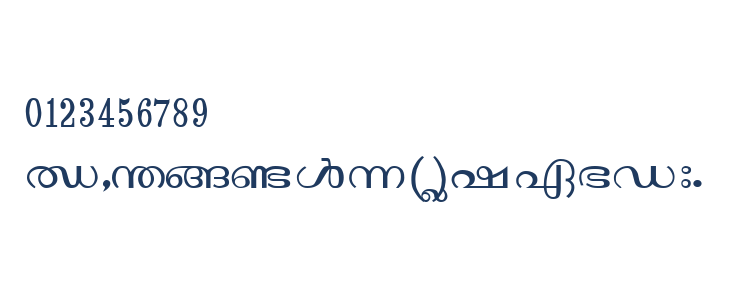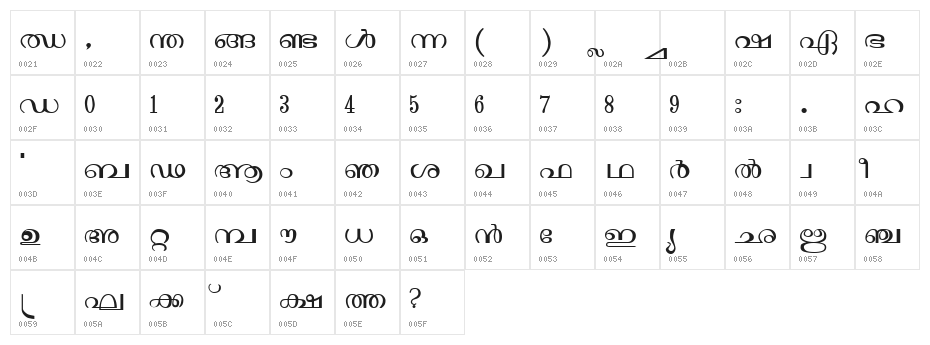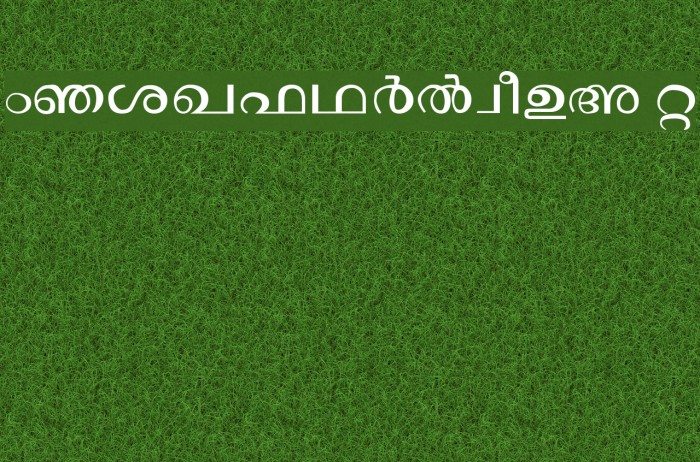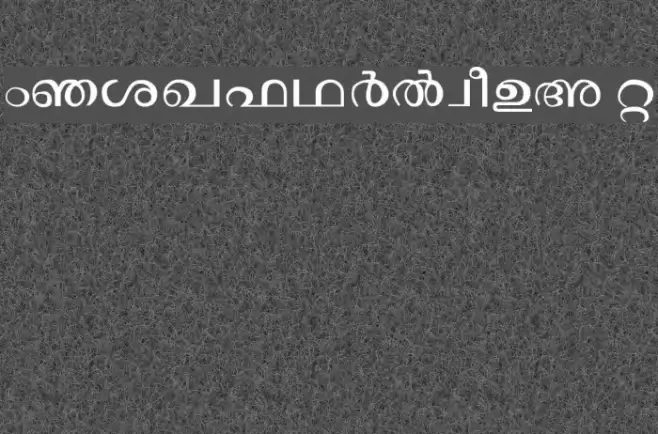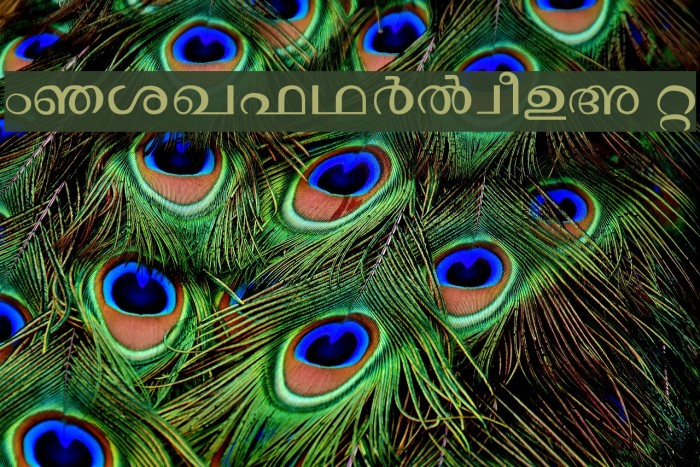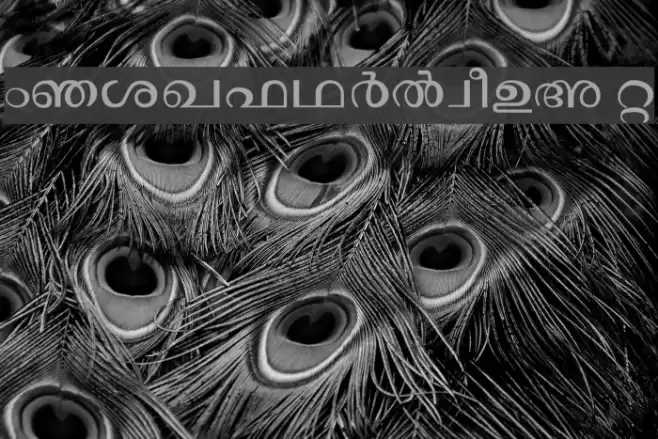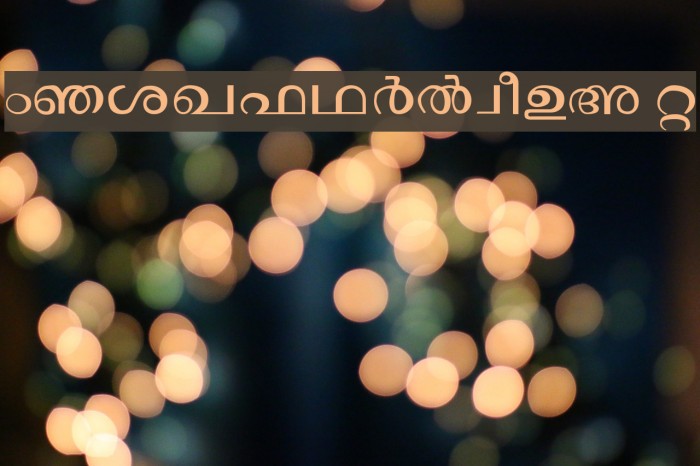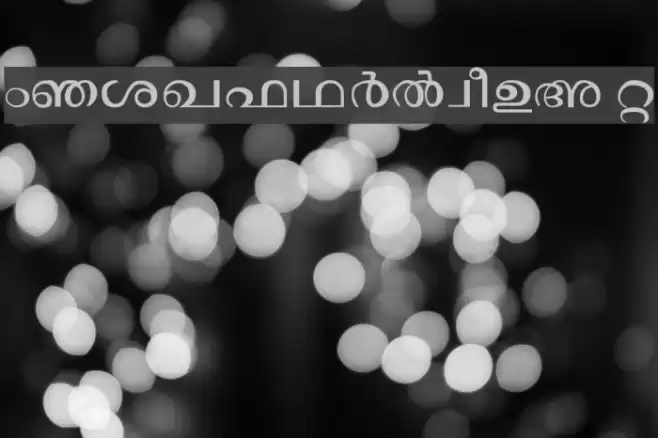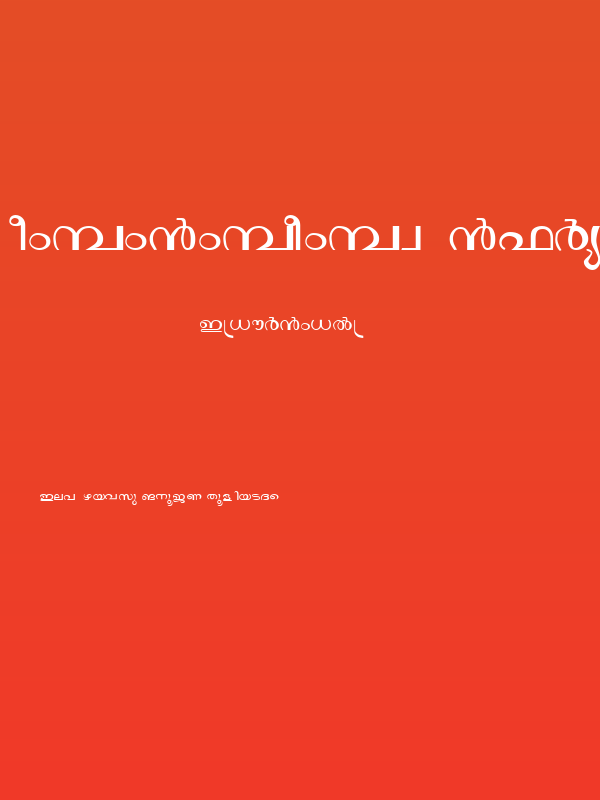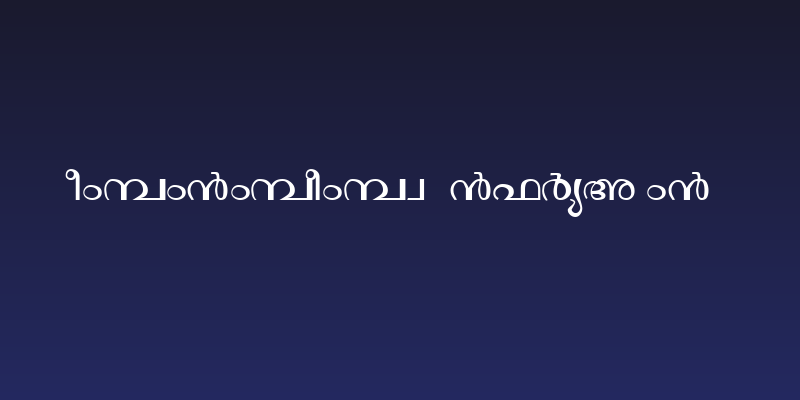
Janaranjani Regular Font
Janaranjani Regular Description
This font features a distinctive style with a blend of traditional and modern elements, showcasing a unique script that is both elegant and readable. The characters are well-defined with a moderate stroke contrast, providing a clear and crisp appearance. The numerals are bold and stand out, making them easily distinguishable. The font maintains a consistent character spacing that ensures readability across various text sizes. Its overall design is suitable for both formal and informal contexts, offering versatility in its application.
Overall StyleClassic
Use CaseHeadlines, Body text, Logos
Proposed ProjectsIdeal for cultural publications, educational materials, and artistic projects that require a touch of elegance and tradition.